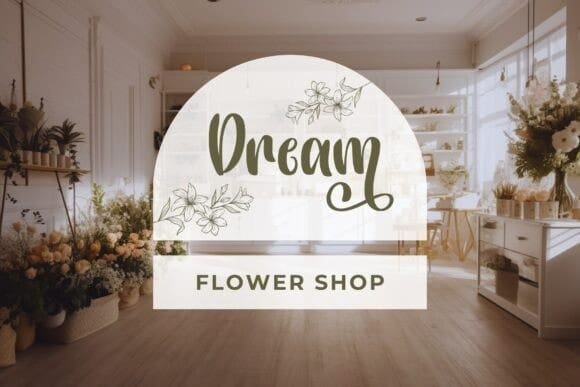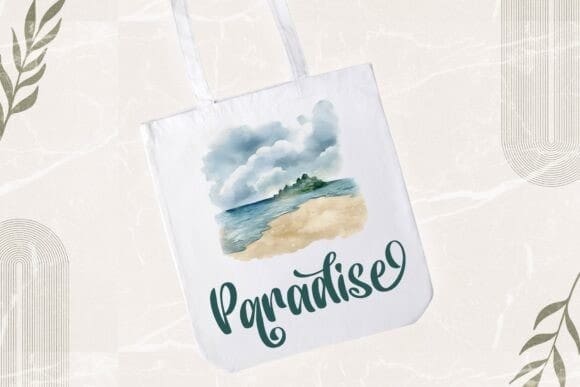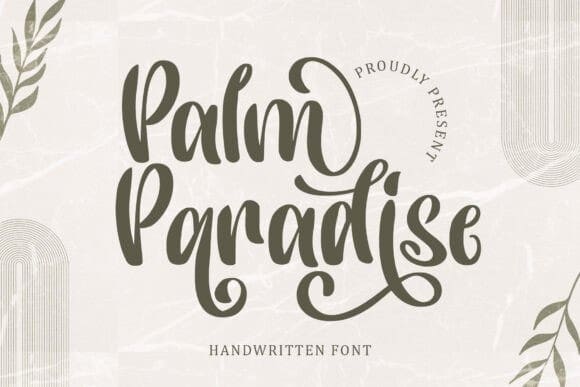
Palm Paradise Font
Palm Paradise Font. Crafted with care, this font nods to the fluidity and spontaneity of handwritten letters, brilliant for personal ventures such as captivating wedding invitations or heartfelt greetings cards. The organic curves and gentle strokes of this handwritten font infuse your design with an unmistakable authenticity, etching an enduring impression on your audience. Every creative flourish begets a unique, unforgettable experience with Palm Paradise, propelling your designs into unforgettable masterpieces.